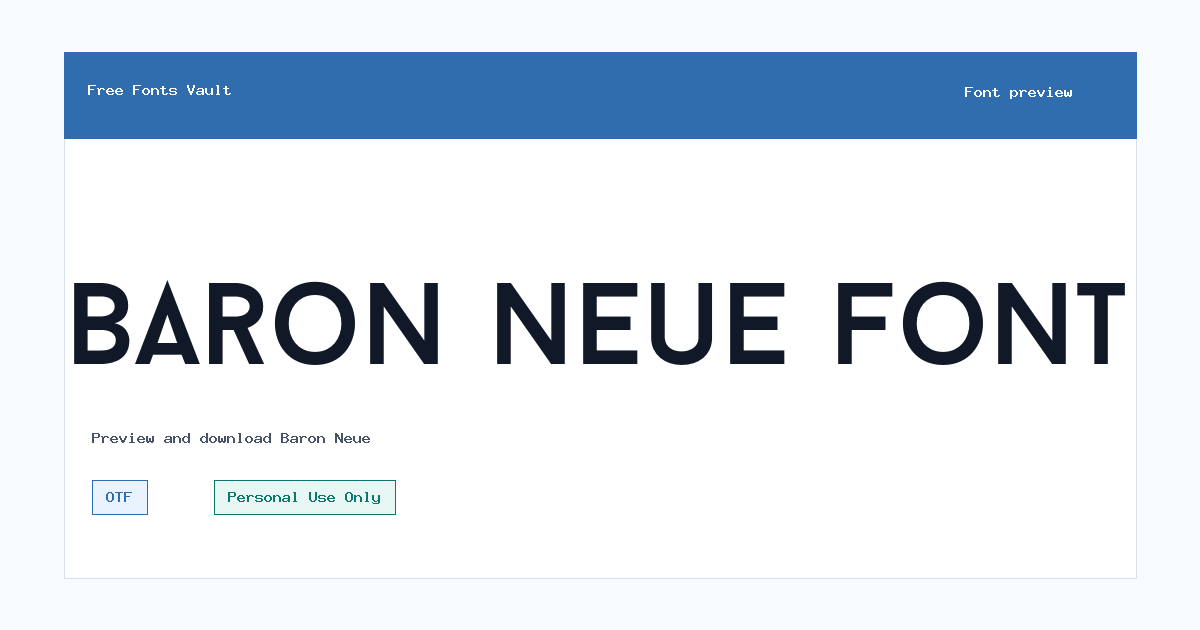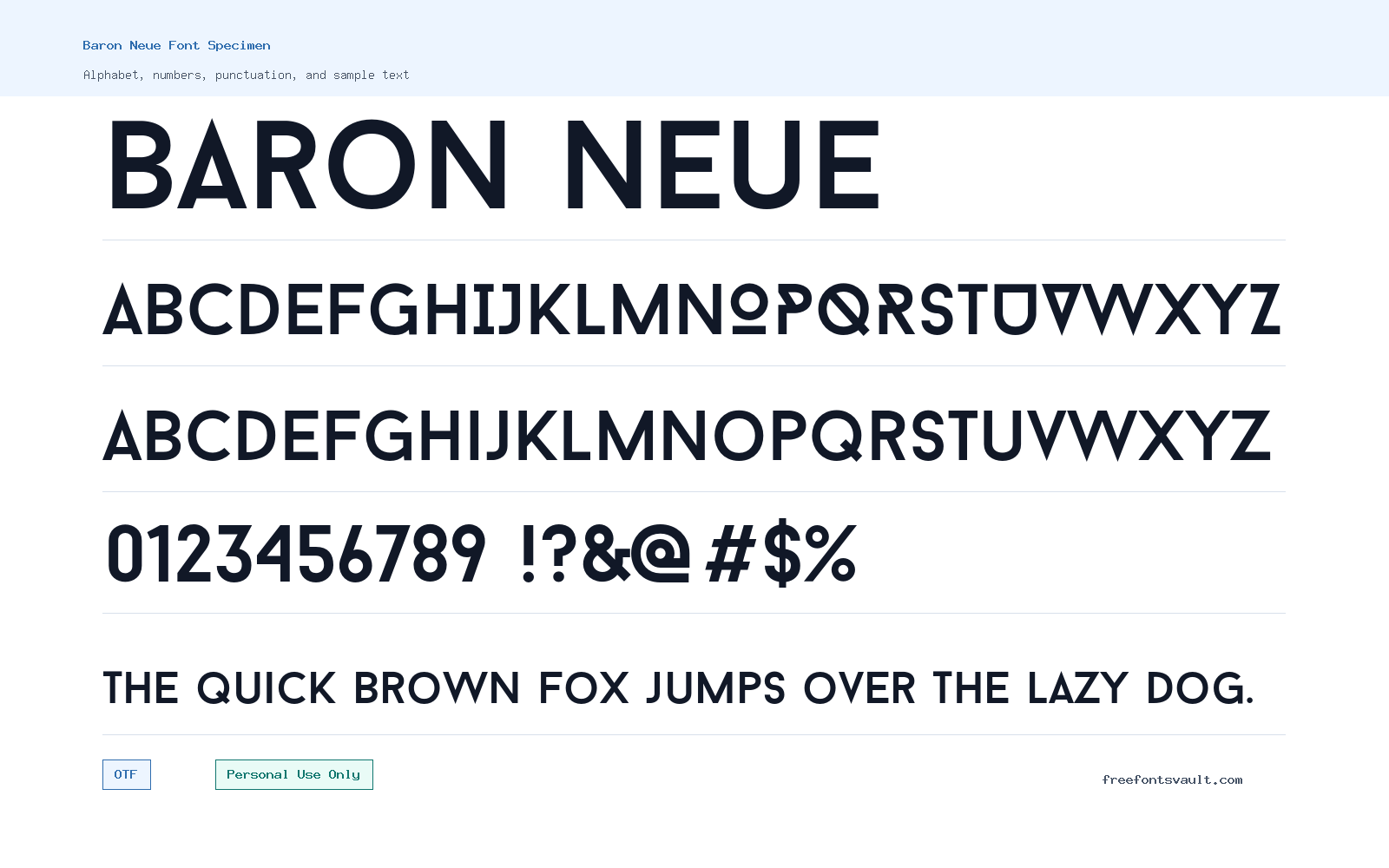
Baron Neue
- Designer Frank Hemmekam
Baron Neue is an uppercase display typeface by Frank Hemmekam, made for bold short text rather than long reading. Its clean sans serif base and display-focused style work best when you need a strong title, poster line, or logo-style wordmark.
Baron Neue is described by its creator’s Behance project as an uppercase display typeface inspired by classic sans serif families. That makes it a better fit for short, high-impact text than for paragraphs. Use the preview tool to test names, headings, initials, and all-caps phrases, because spacing and letter shapes can feel very different once your own words are typed in.
- Uppercase display typeface suited to short text and headline use
- Posters, title graphics, and bold headline layouts
- Logo-style wordmarks, initials, labels, and short branding mockups
Baron Neue is credited to Frank Hemmekam, with Frank Hemmekam also listed as the foundry in the font details.
Try the font with short uppercase words first. Check spacing at the exact size you plan to use, especially in logo-style text or tight poster layouts. Pair it with a plain sans serif or serif for body text so Baron Neue can stay focused on headings and display moments. It also works well when the layout gives uppercase words generous spacing. Test narrow words and wide words separately because the rhythm can change quickly.
What kind of font is Baron Neue?
Baron Neue is an uppercase display typeface. It is best used for short text such as headlines, posters, logotypes, and title graphics.
Can I use Baron Neue for body text?
It is not the best choice for long reading. Use it for short display text, then pair it with a more readable text font for paragraphs.